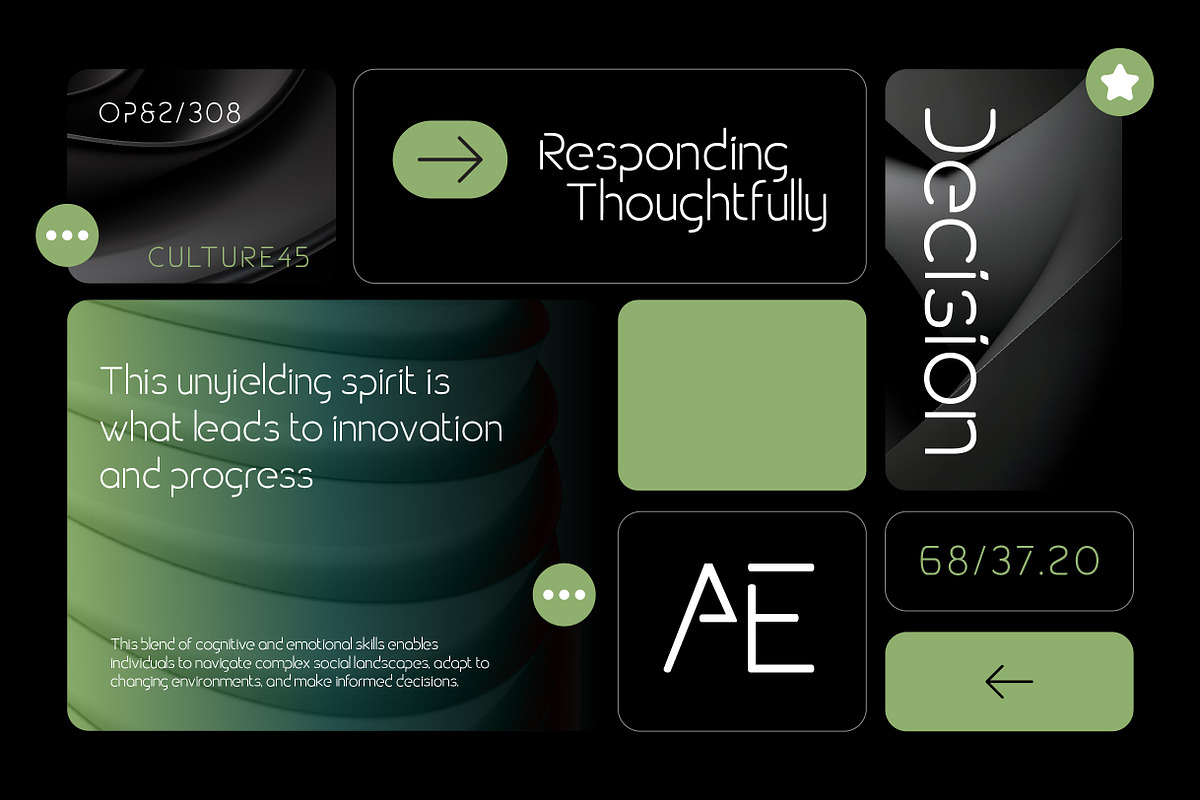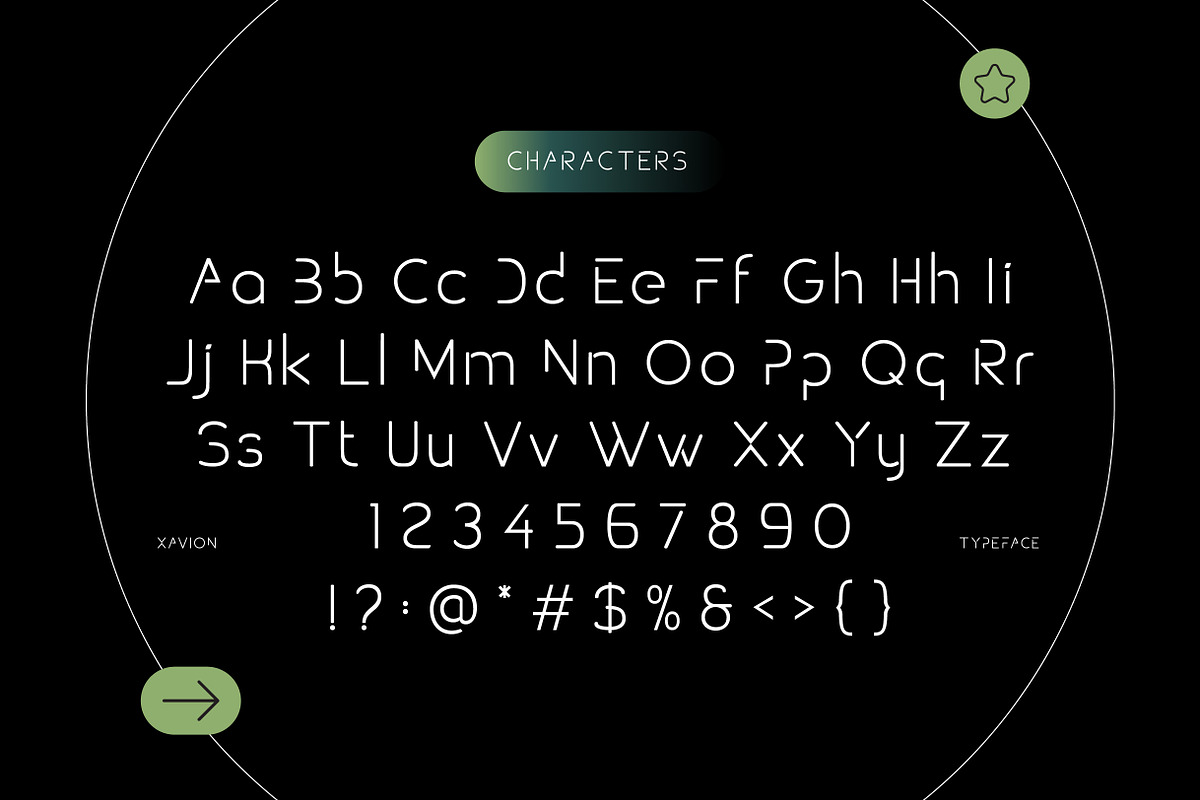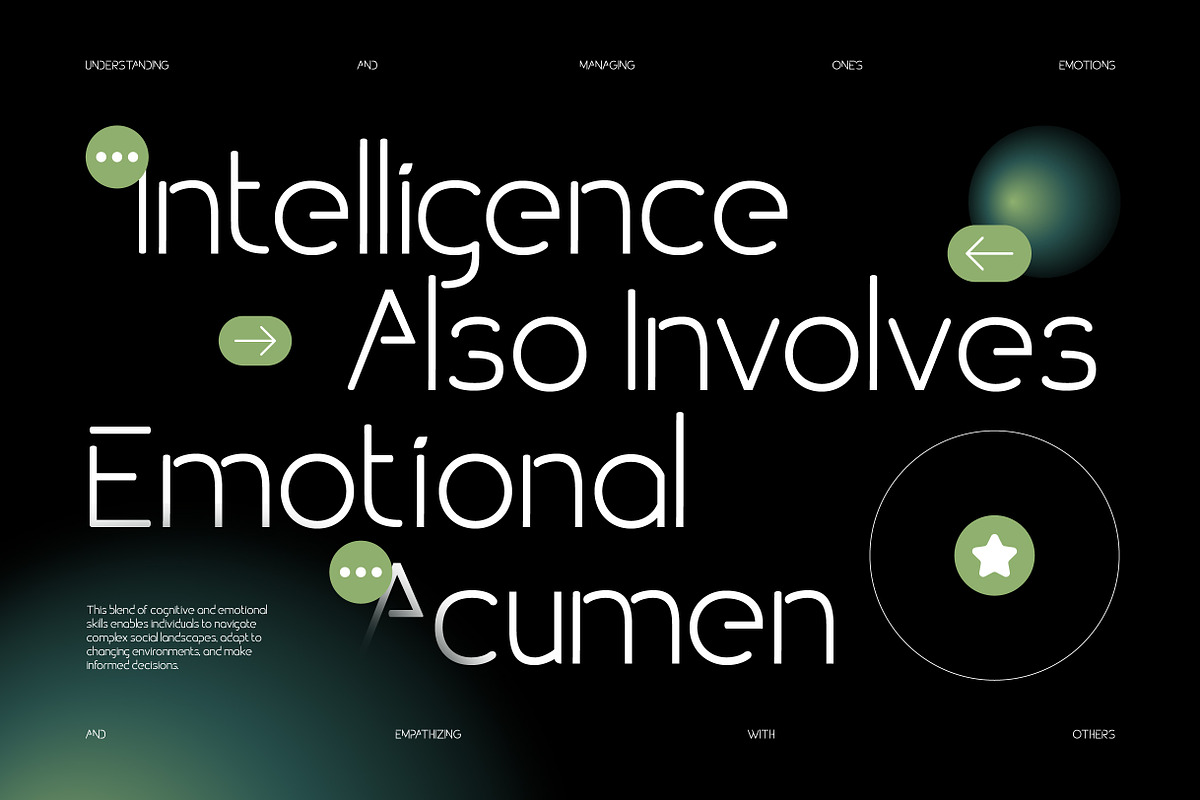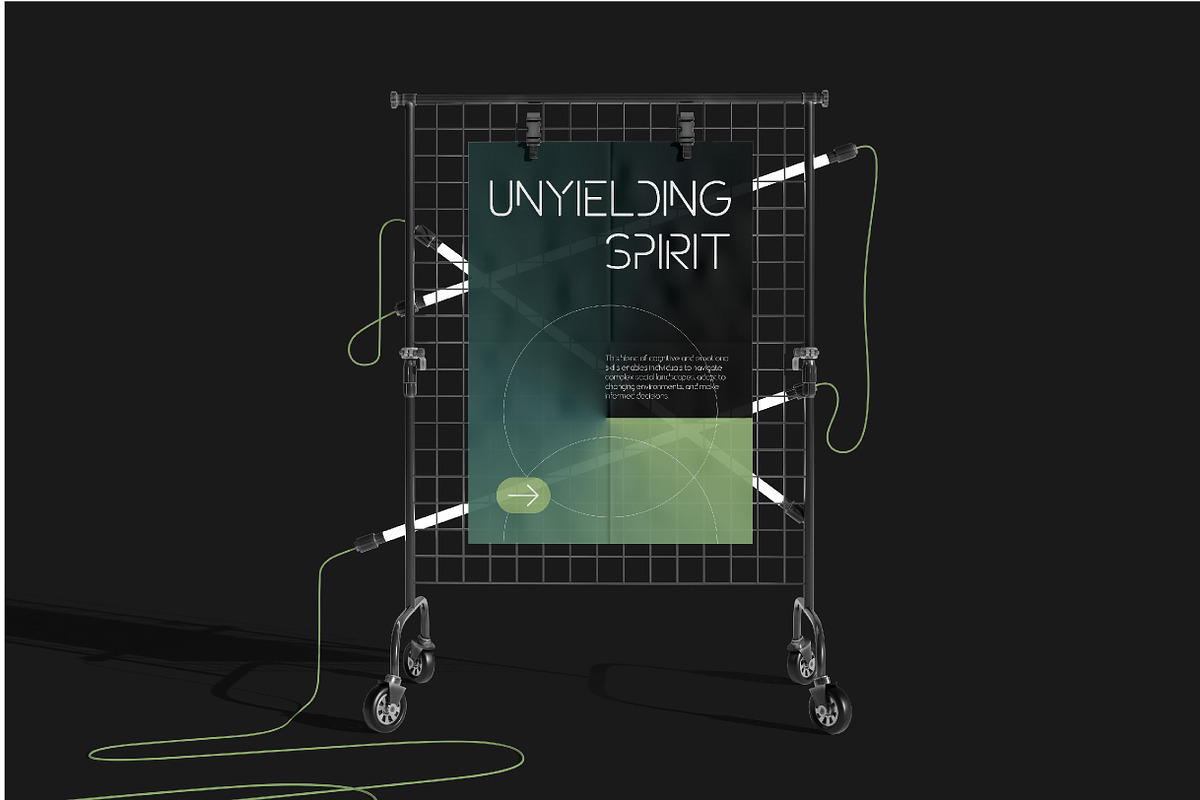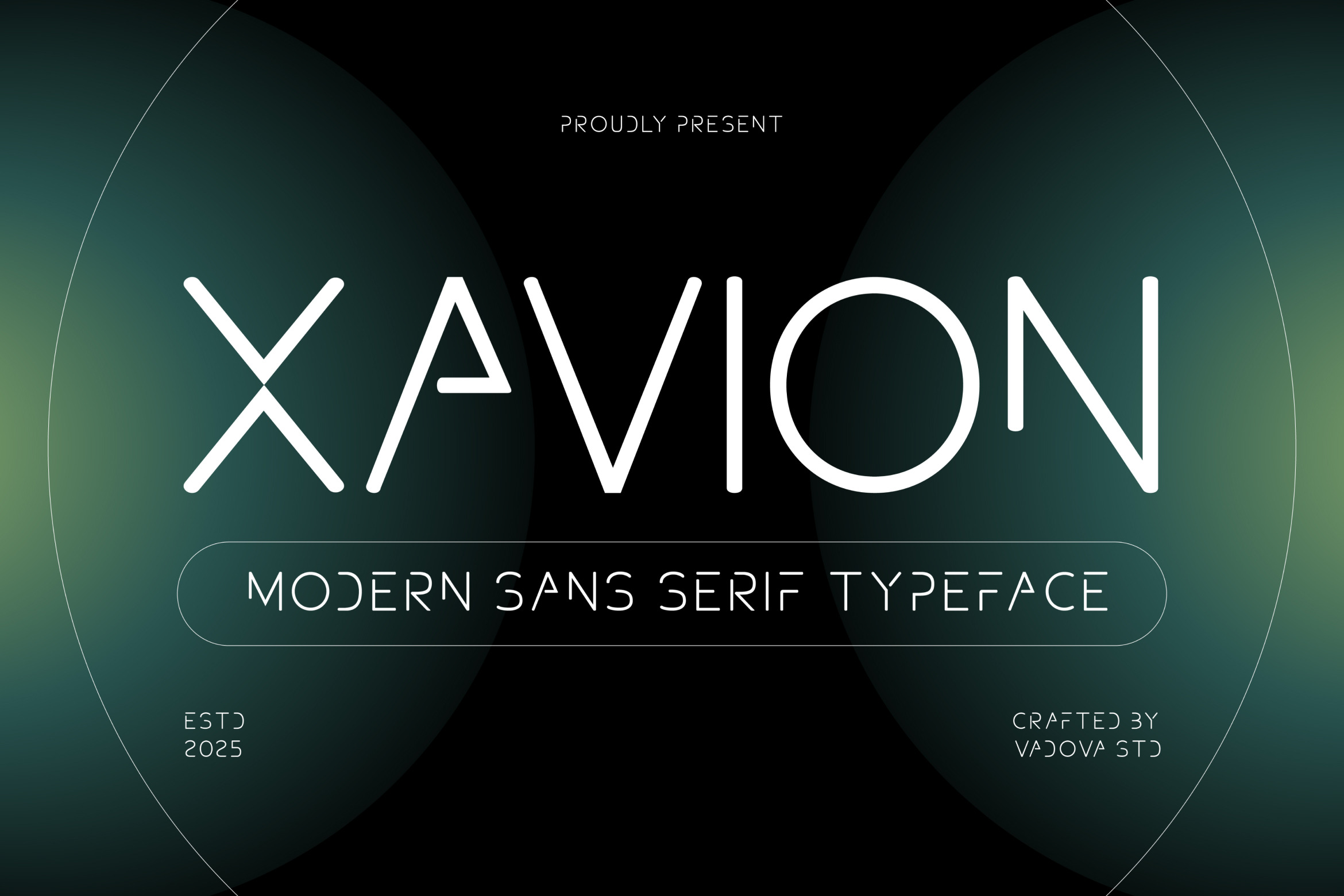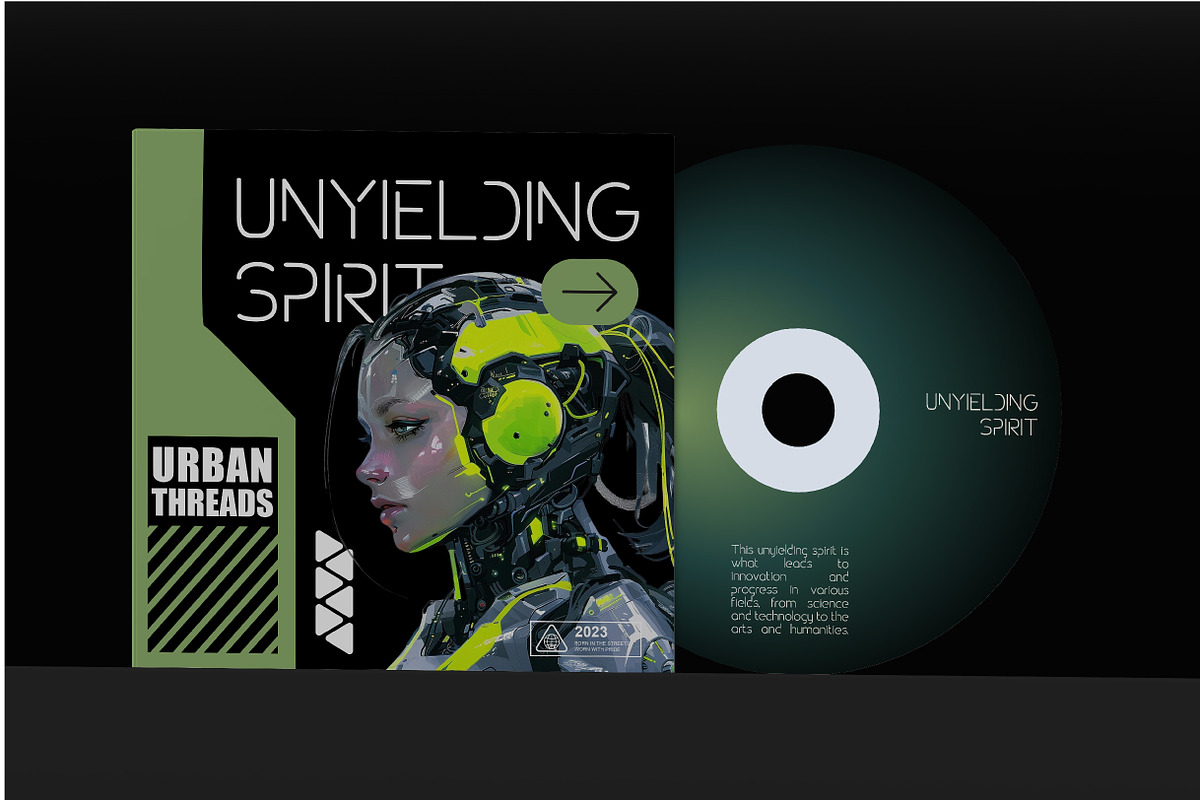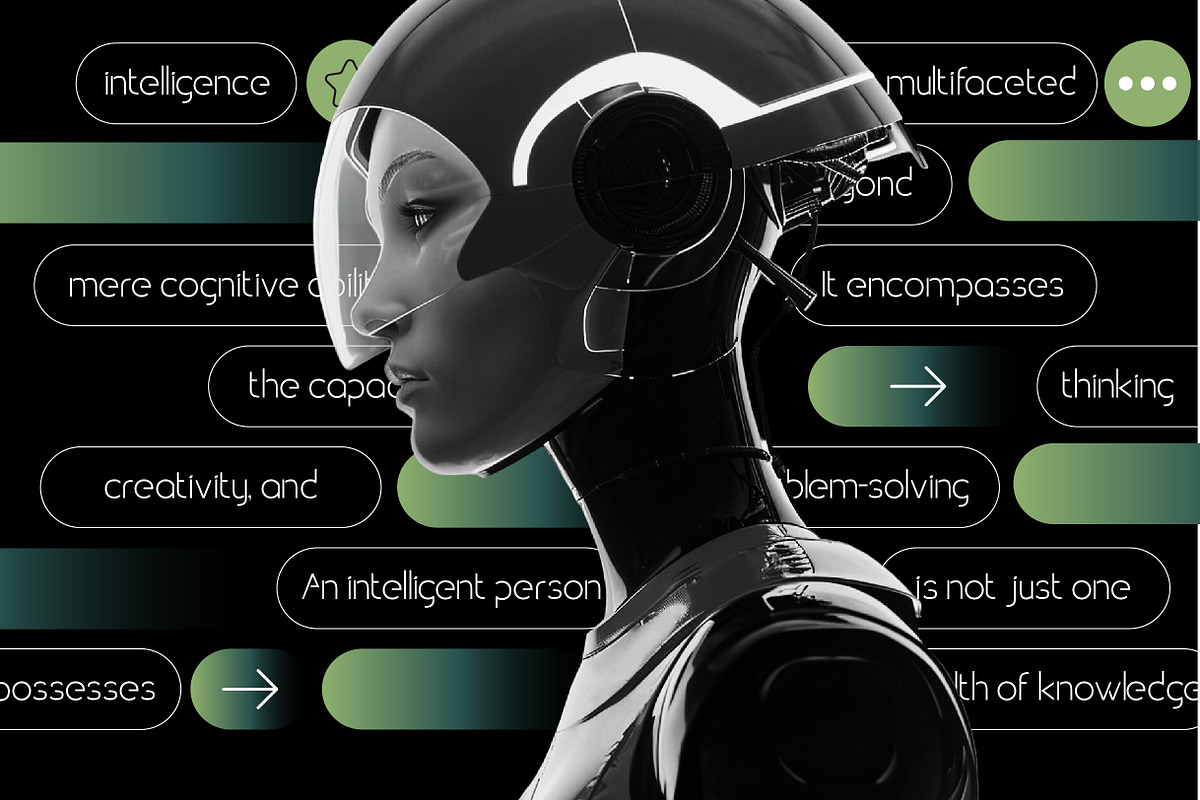
Xavion -Modern Sans Serif Font
Xavion is a futuristic sans-serif font with a cutting-edge aesthetic that fuses minimalism with digital sophistication. Its sleek, modern structure is infused with geometric intelligence, giving each letter a precise, high-tech edge.
Ideal for the emerging world of tech startups, UI/UX prototypes, gaming interfaces, or fashion-tech editorial layouts, Xavion carries a distinct air of intelligence and emotional clarity.
Its geometric and slightly experimental sans-serif construction makes it suitable for large headlines, immersive landing pages, and product launches where impact and readability must go hand in hand.
Whether you're branding AI startups, launching apps, or designing smart interfaces, Xavion is your visual voice of progress and precision.